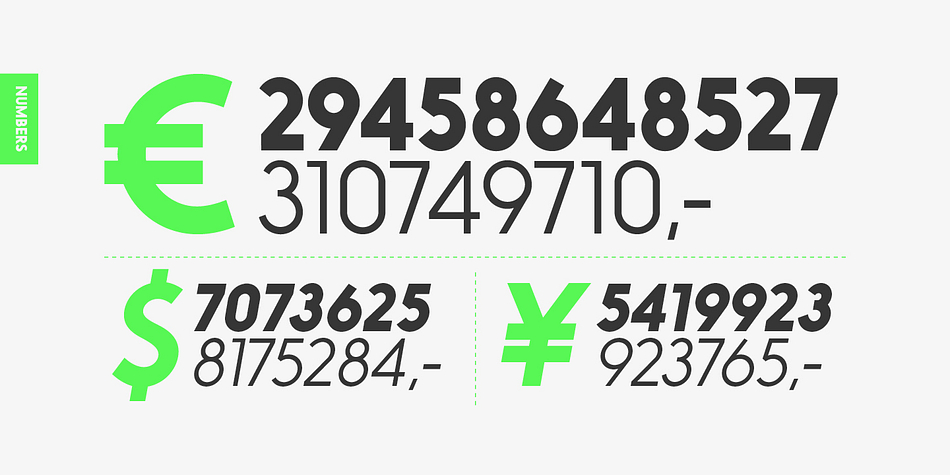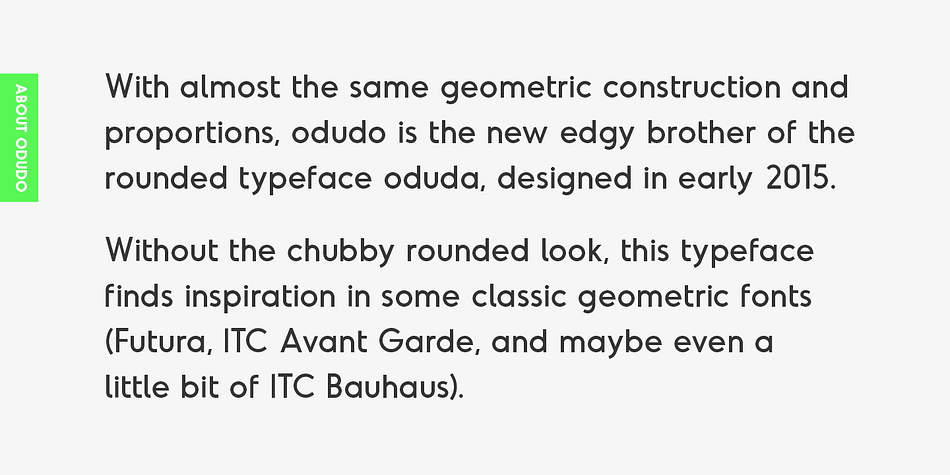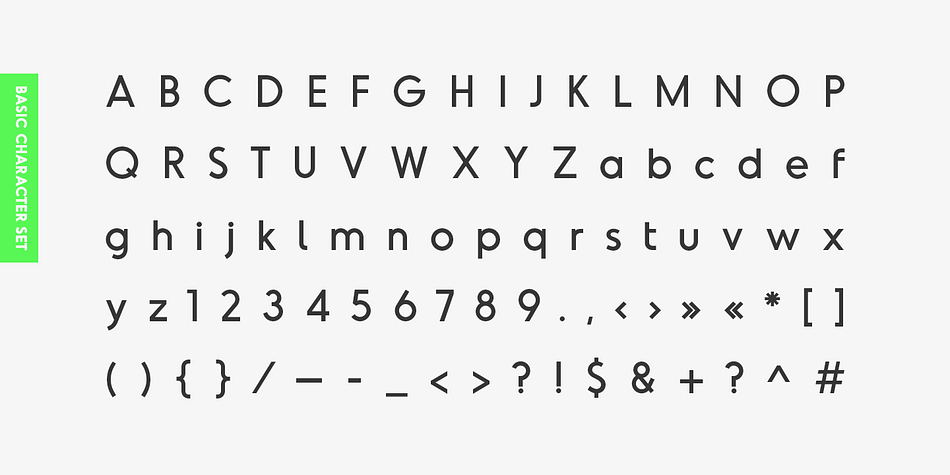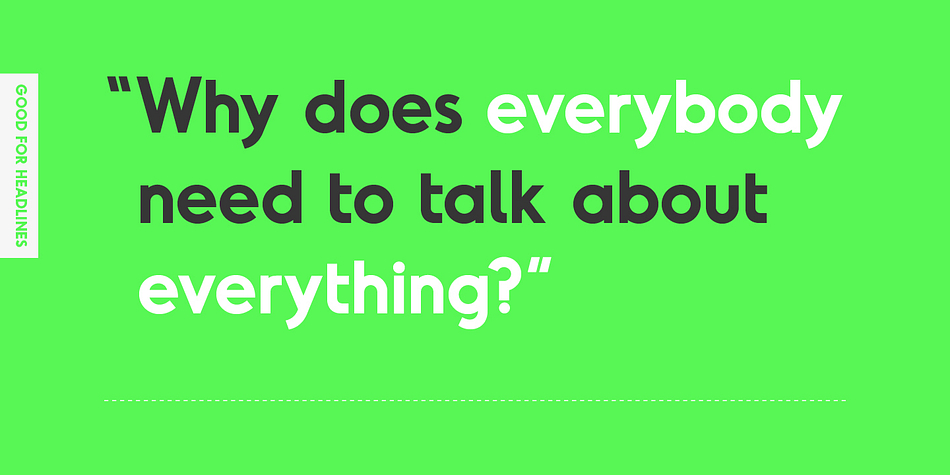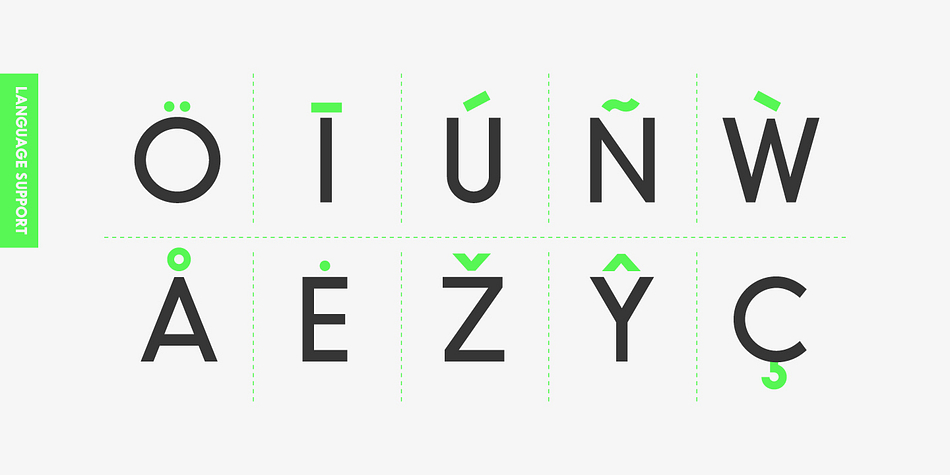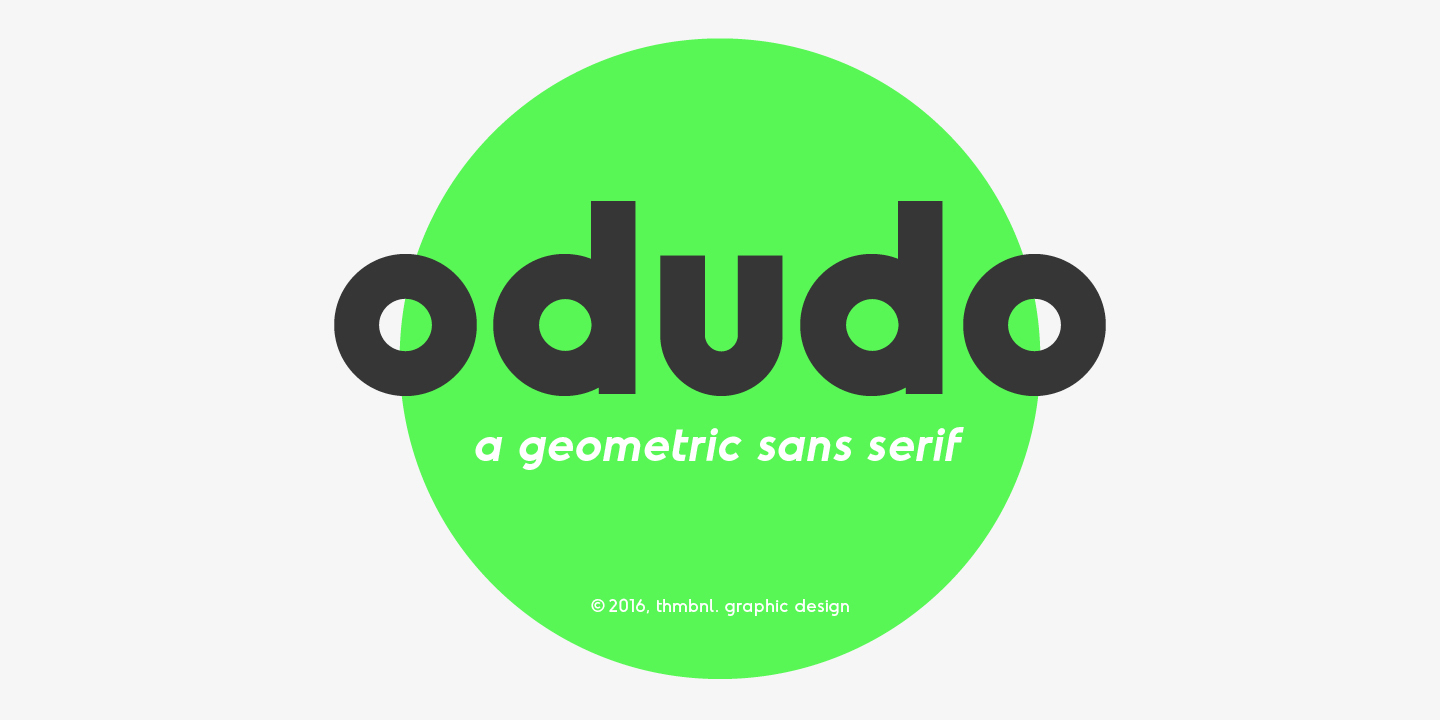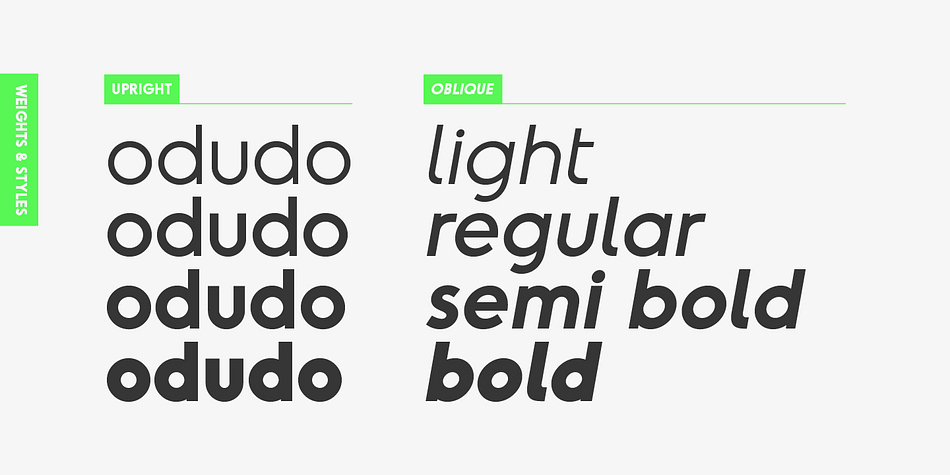
Odudo is a sans serif font family. This typeface has eight styles and was published by thmbnl.
With almost the same geometric construction and proportions, Odudo is the new edgy brother of the rounded typeface oduda, designed in early 2015. Without the chubby rounded look, this typeface finds inspiration in some classic geometric fonts (Futura, ITC Avant Garde, and maybe even a little bit of ITC Bauhaus).